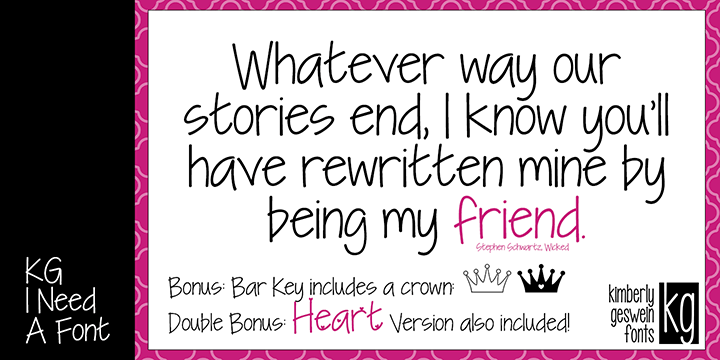
Preview and download KG I Need A Font Font. Created by Kimberly Geswein in Script Handwritten styles with Free for personal use license.
A neat handwritten font in 2 styles- one with hearts and one without hearts. For commercial licensing, please see http://kimberlygeswein.com |